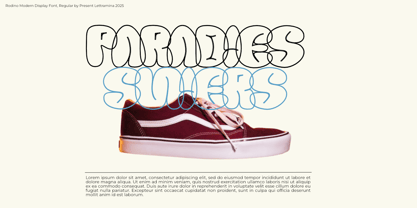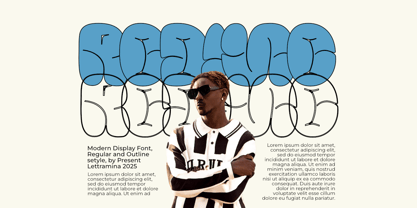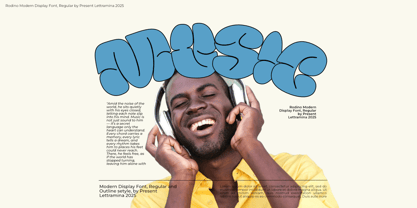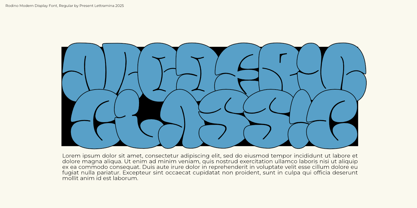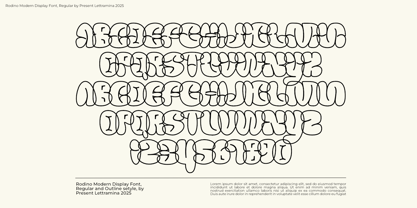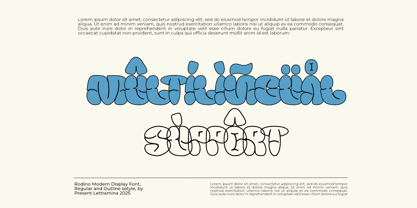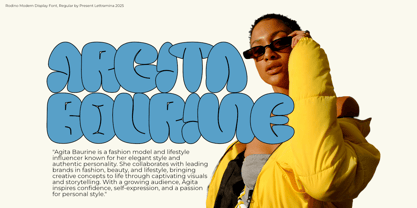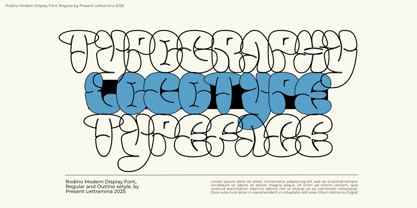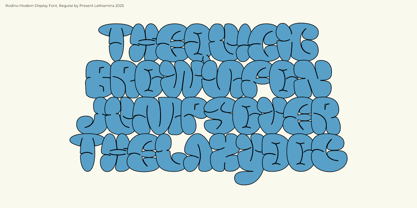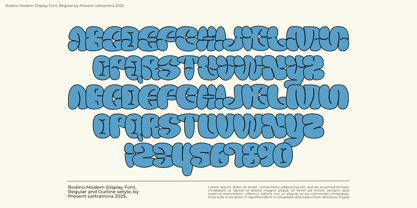
Rodino
by Lettramina Studio
The Rodino Font Family was designed by Mukshal Mina and published by Lettramina Studio. Rodino contains 2 styles and family package options. More about this family
Rodino is a bold and bubbly display typeface that blends retro charm with modern playfulness. Featuring smooth, rounded forms and a unique inflated letter style, Rodino brings a fun and eye-catching personality to any design. Its distinctive curves and whimsical shapes make it perfect for branding, posters, album covers, editorial layouts, packaging, and creative typography projects.
Whether you want to create a vibrant fashion look, a cheerful event poster, or a nostalgic retro vibe, Rodino delivers versatility with a unique visual punch. The font includes uppercase, lowercase, numbers, punctuation, and multilingual support, ensuring it’s ready for both print and digital design.
Designers: Mukshal Mina
Foundry: Lettramina Studio